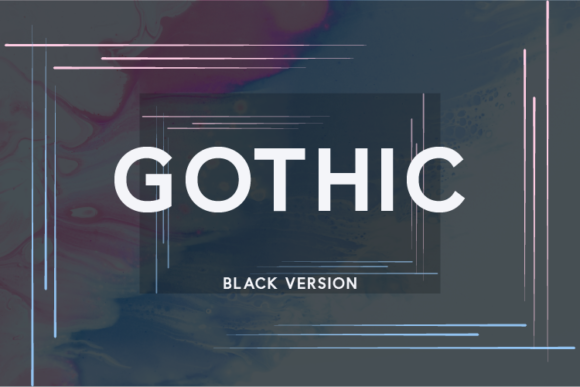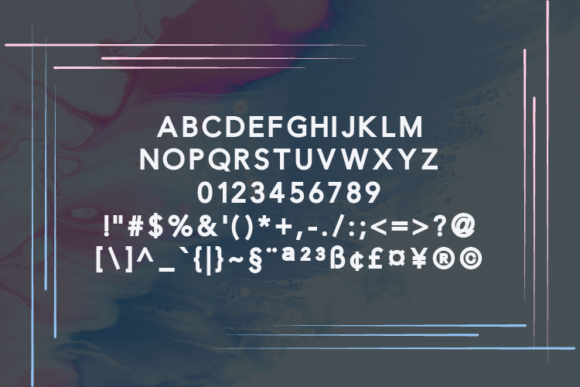
Gothic Black Font
About Gothic Black Font
Gothic Black is a modern and elegant sans serif font. This font will pair well with script and handwritten fonts.
It is perfect for your next projects and will work well for headings and also smaller body text as well.